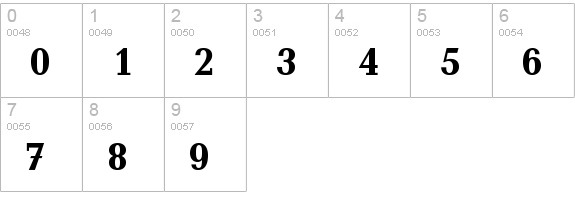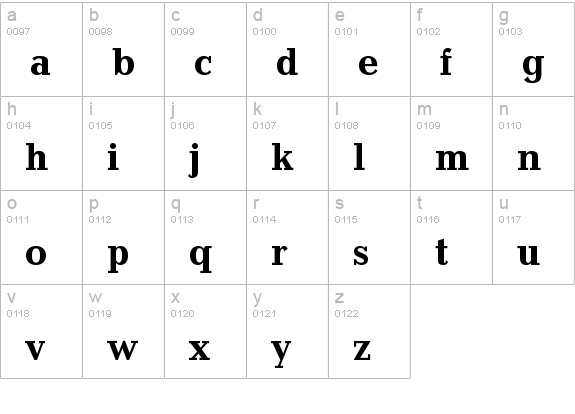
CandidaEF-Medium is a balanced, medium-weight variant in the CandidaEF typeface family \xE2\x80\x94 well suited to sub-headlines, navigation, and balanced editorial work.
CandidaEF-Medium is a versatile and elegant font that strikes the perfect balance between sophistication and readability. With its clean lines and classic proportions, this font is ideal for a wide range of design projects, from branding and advertising to editorial and web design. The medium weight of CandidaEF-Medium gives it a modern and timeless appeal, making it a great choice for both print and digital applications. The best part about CandidaEF-Medium is that it is completely free to download at FontsMarket.com. This means you can easily access this high-quality font without any cost, making it a valuable addition to your font library. Whether you're a professional designer or a hobbyist looking to elevate your projects, CandidaEF-Medium is sure to impress with its versatility and style. Download it today and enhance your designs with this beautiful and freely available font.